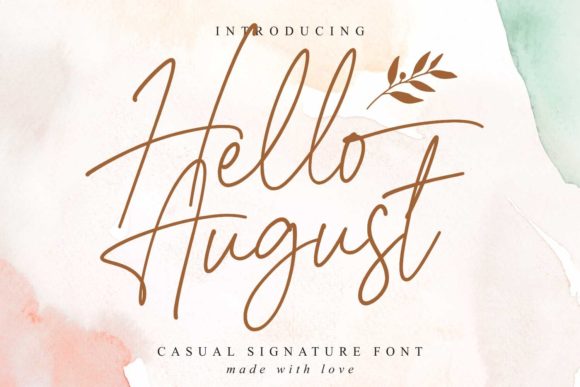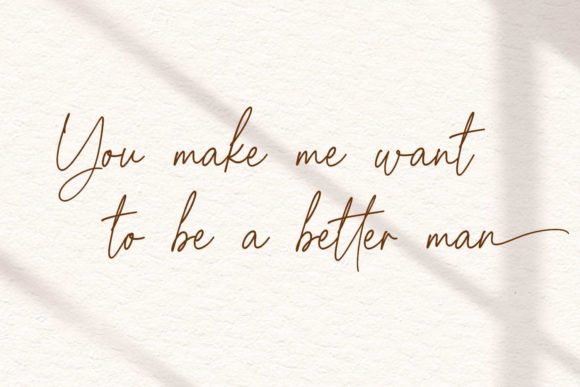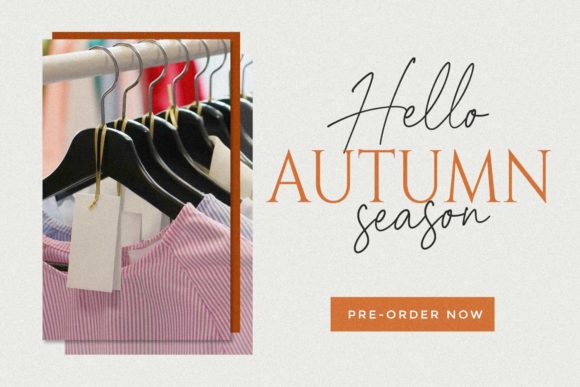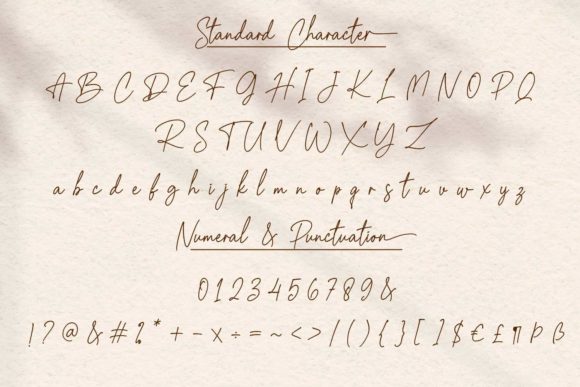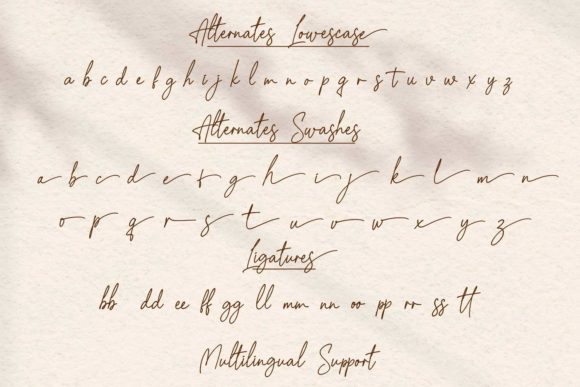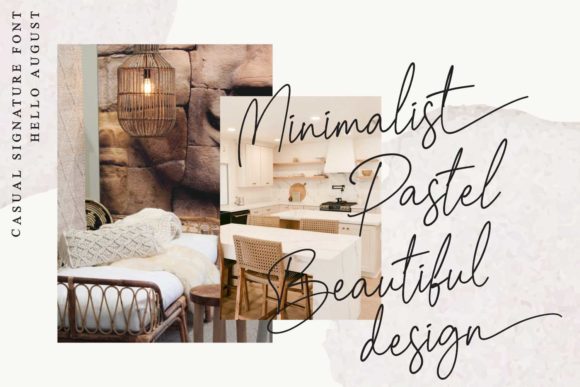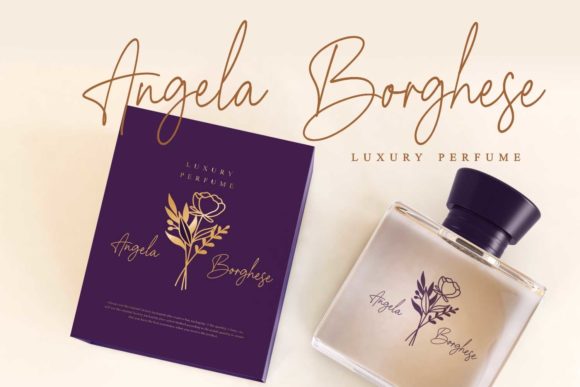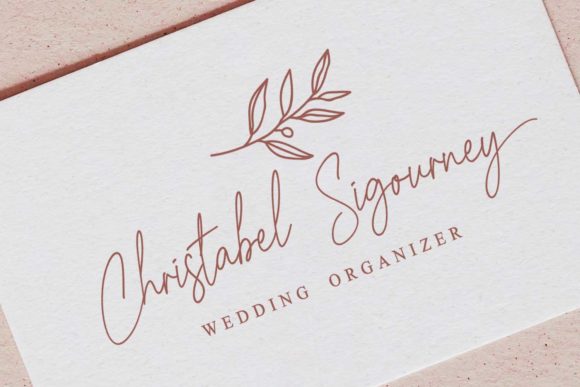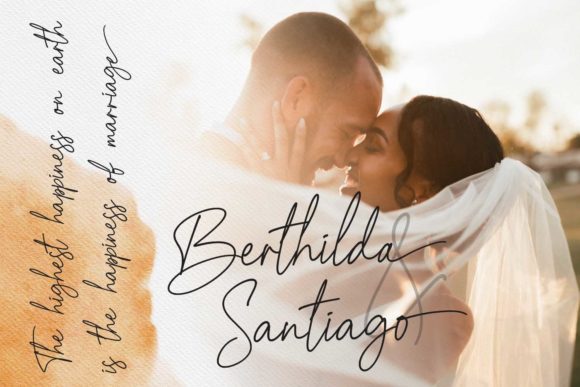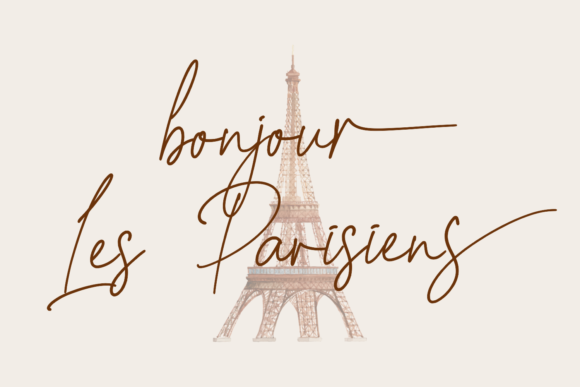
Hello August Font
About Hello August Font
Hello August is an authentic and casual script font. It is PUA encoded which means you can access all of the glyphs and swashes with ease!